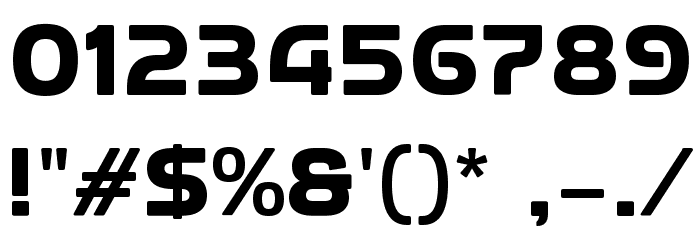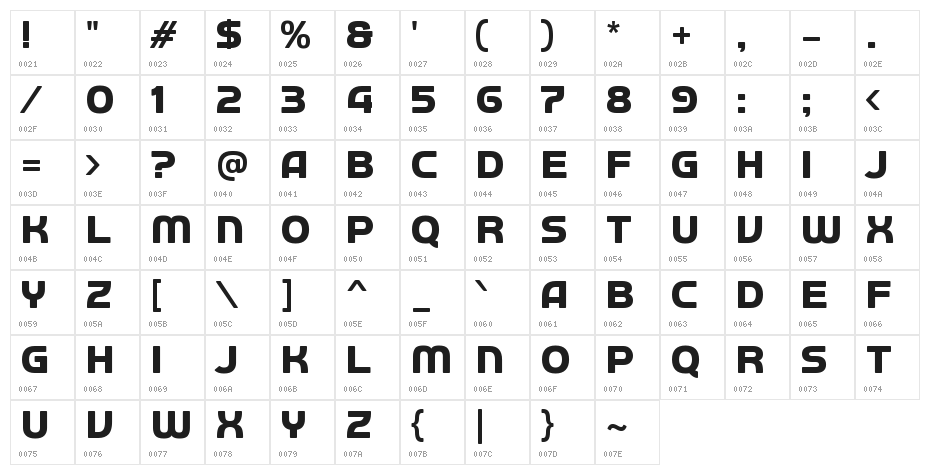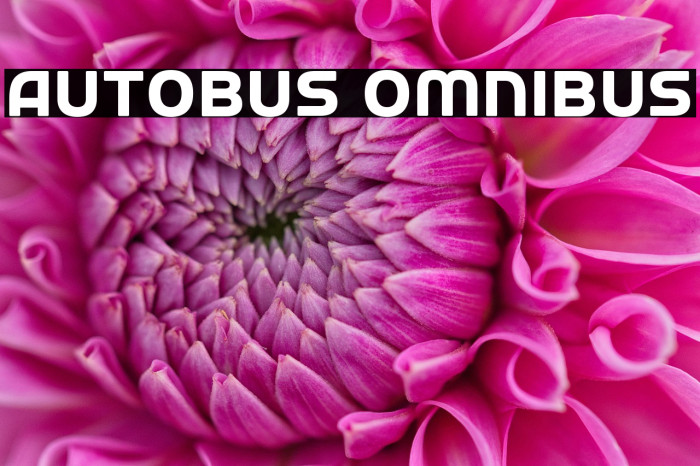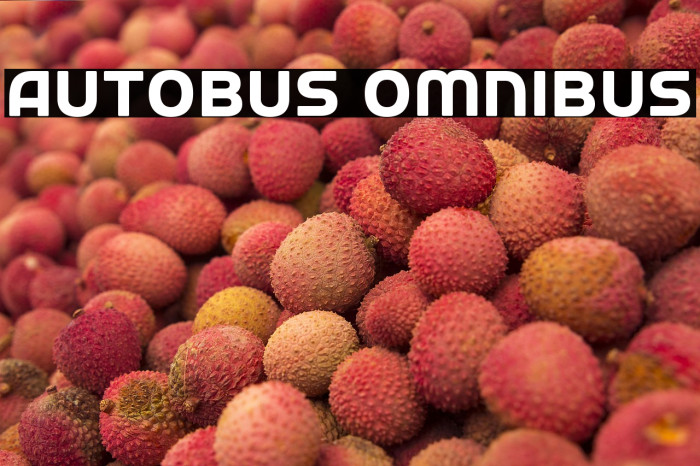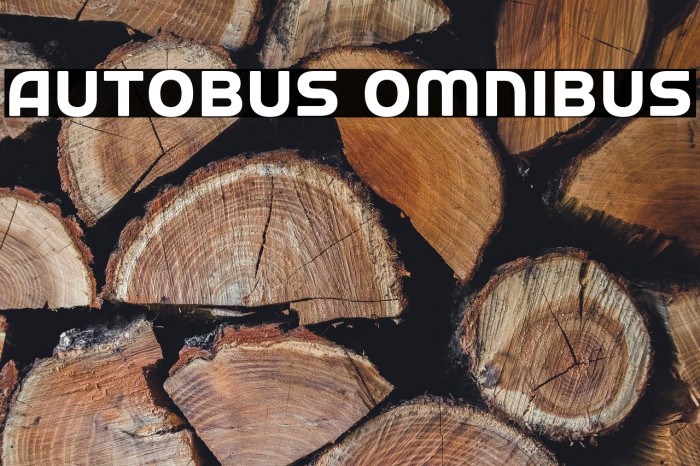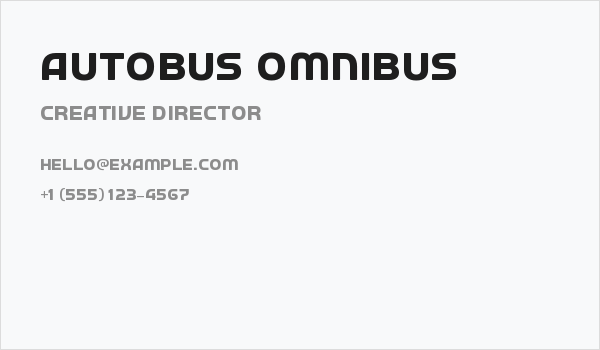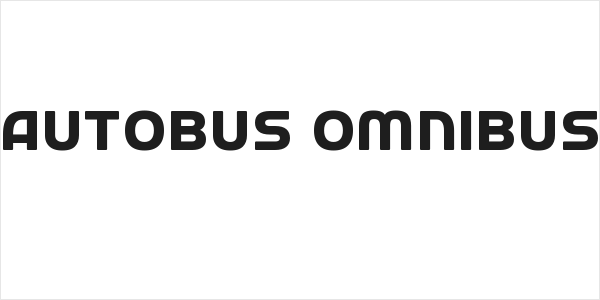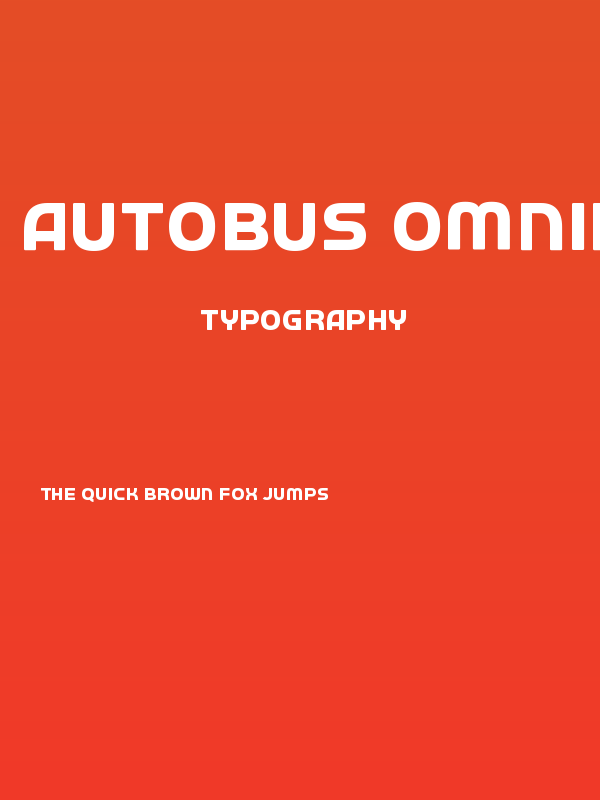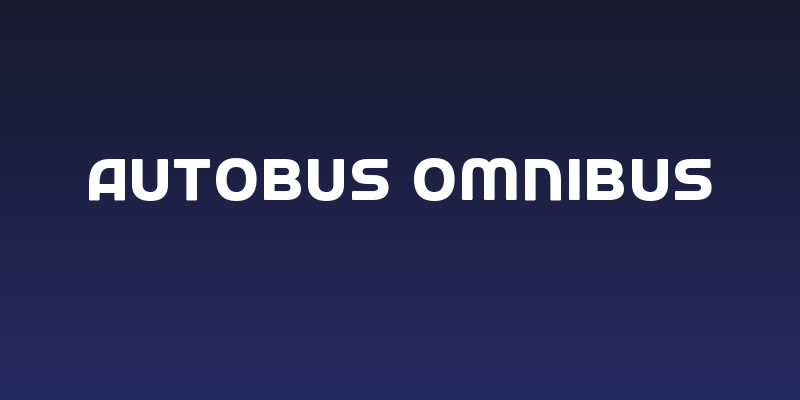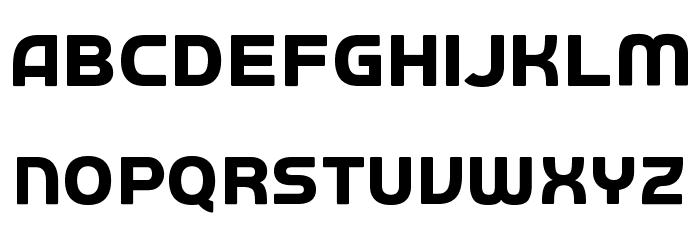
Autobus Omnibus Font
Autobus Omnibus Description
This font features a bold and rounded style with a modern and geometric appearance. The characters are uniformly thick, providing a strong visual impact. The rounded edges soften the overall look, making it approachable while maintaining a sense of professionalism. The numbers and special characters follow the same design principles, ensuring consistency across all glyphs. This font is highly legible, even at smaller sizes, due to its clear and straightforward design.
| Use Case | Headlines, Logos, Signage |
| Proposed Projects | Ideal for branding, signage, posters, and digital interfaces where a modern and approachable look is desired. |